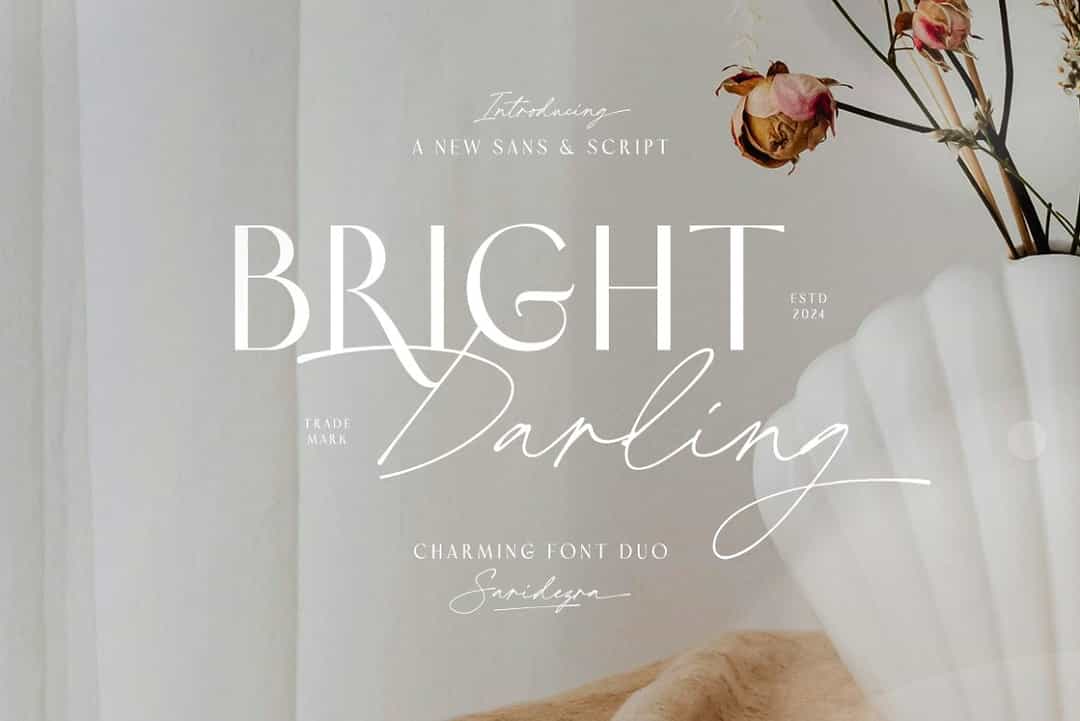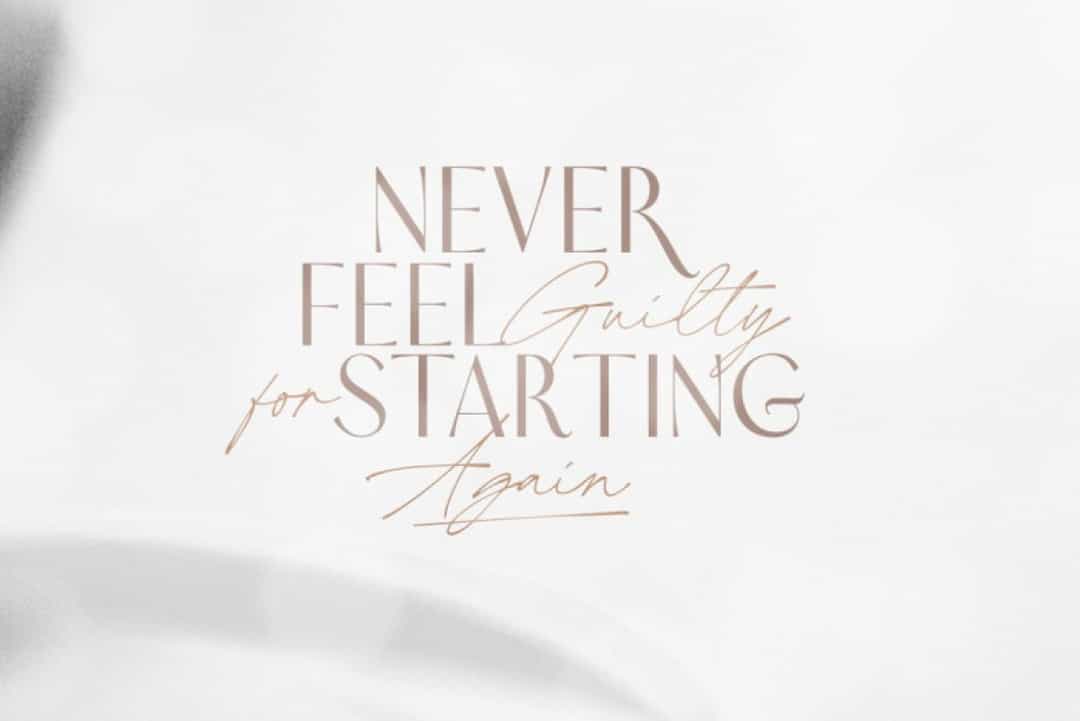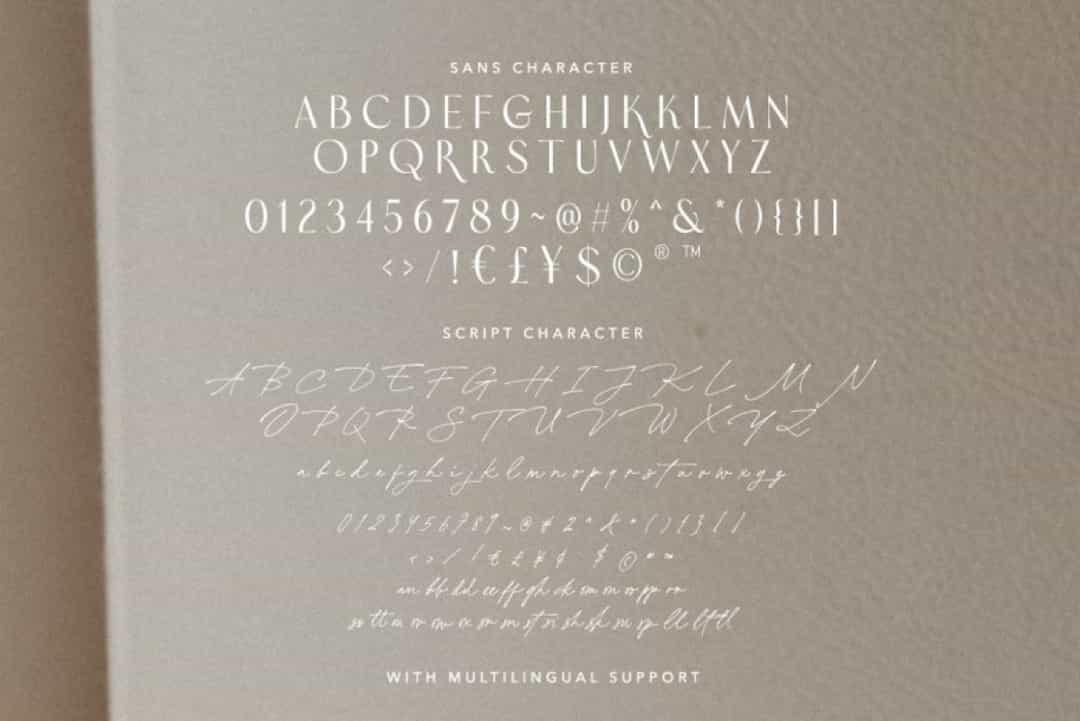
Bright Darling is an elegant font pair, offering the perfect combination of modern sans-serif font and signature script fonts. It includes both an all caps font for elegant modernity as well as handwriting-inspired script font.